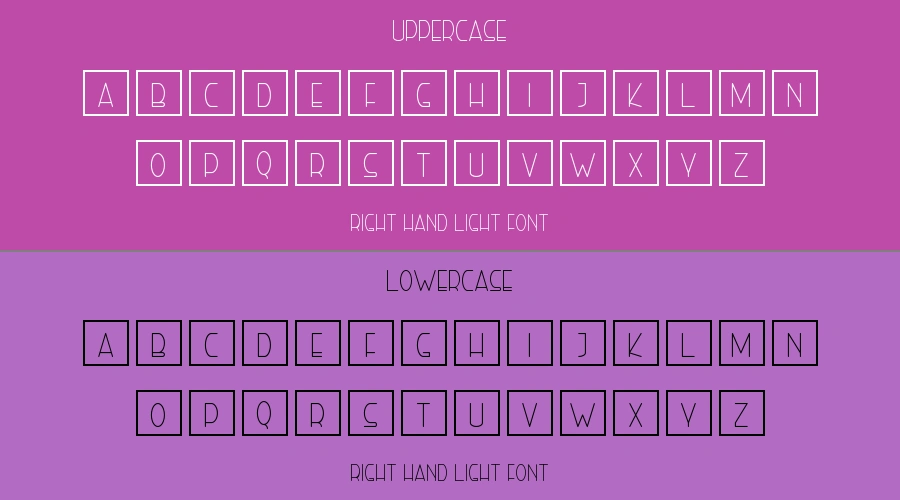
About Right Hand Light Font
Designed with precision, Right Hand Light Font merges harmonious shapes with reliability in every character. This versatility makes it particularly effective for packaging hero, where reliability and creative potential directly impact communication quality. Each letterform demonstrates meticulous craftsmanship.
Technical excellence shines through elements like organic forms and subscript/superscript, enhancing typographic versatility. In marketing collateral settings, Right Hand Light Font proves its worth through superior rendering. The thoughtful execution of character width and design heritage ensures professional results.